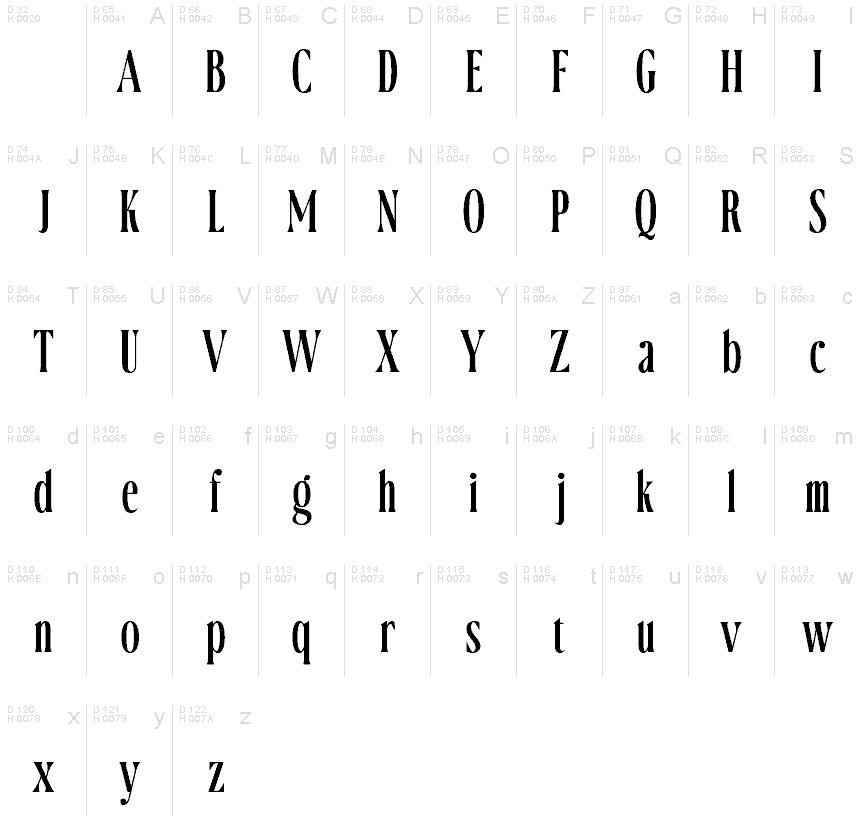
CS Damon Demo Regular
CS Damon font is a masterful creation by Craft Supply Co. made as a free serif font with a rich classic appeal. With its authoritative presence and remarkable elegance, the condensed font exudes sophistication owing to its traditional style which takes over not just each character but also your entire design that is bound to feel exceptional.
Elevate your business card designs, book covers, and editorial layouts with CS Damon for spectacular results every time. Poster designs will look refined while product packaging feels elevated when adorned using this typeface. Impressive website headers, branding projects, advertisement boards, brochures and magazines covers are some further uses.